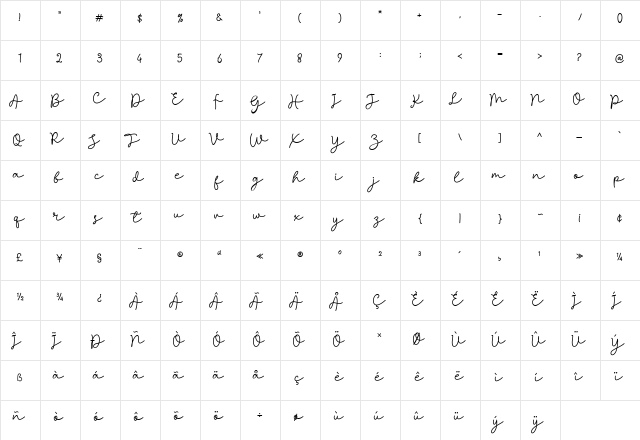
sheenline script Regular
Design Context for sheenline script Typeface
sheenline script brings a calligraphic fluidity to the page — its connecting strokes and expressive curves give it an unmistakably human quality.
Font Pairing: Combine sheenline script with a simple geometric sans for maximum contrast — the tension between flowing curves and clean structure is a classic typographic pairing.
Pro Tip: Use sheenline script for short runs of text — names, titles, or taglines. Extended body copy in script faces tires the eye quickly.